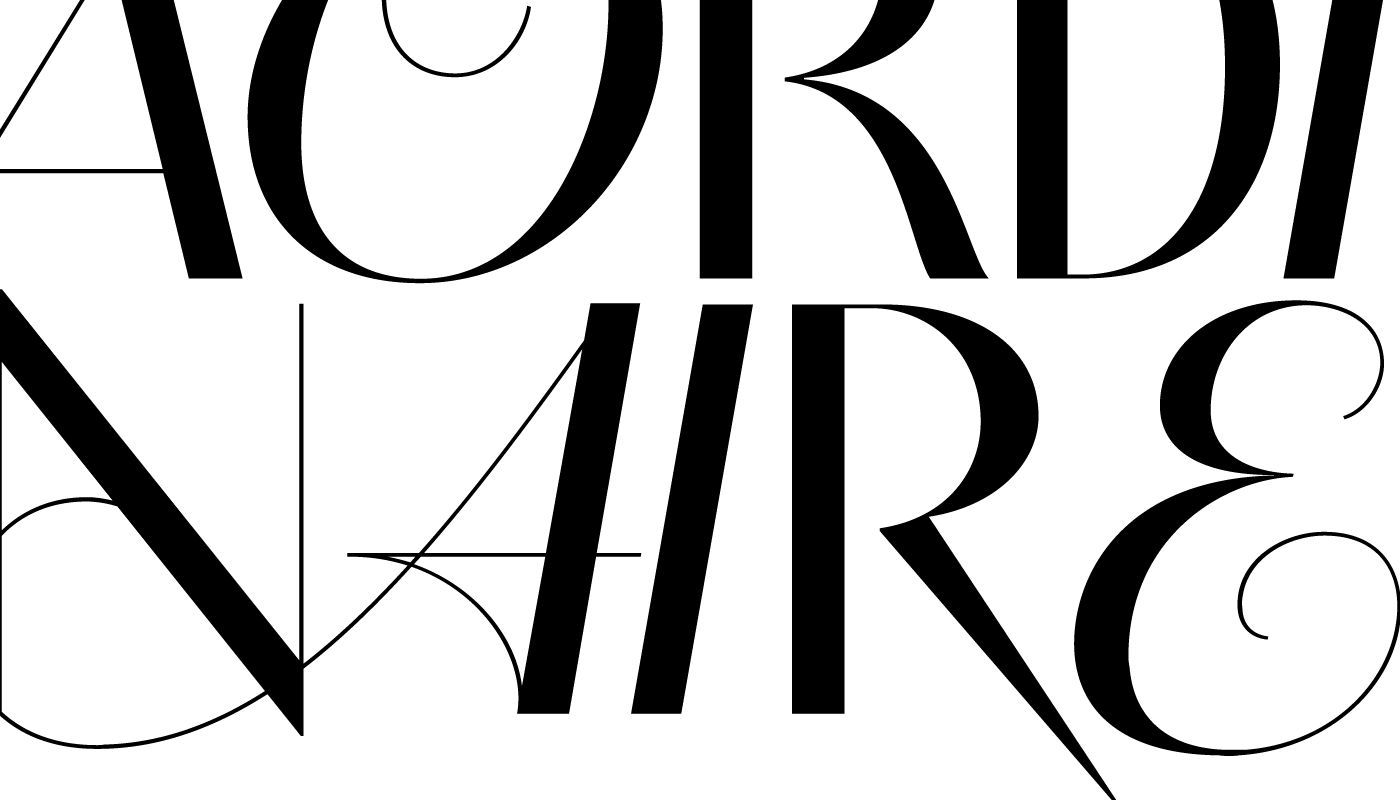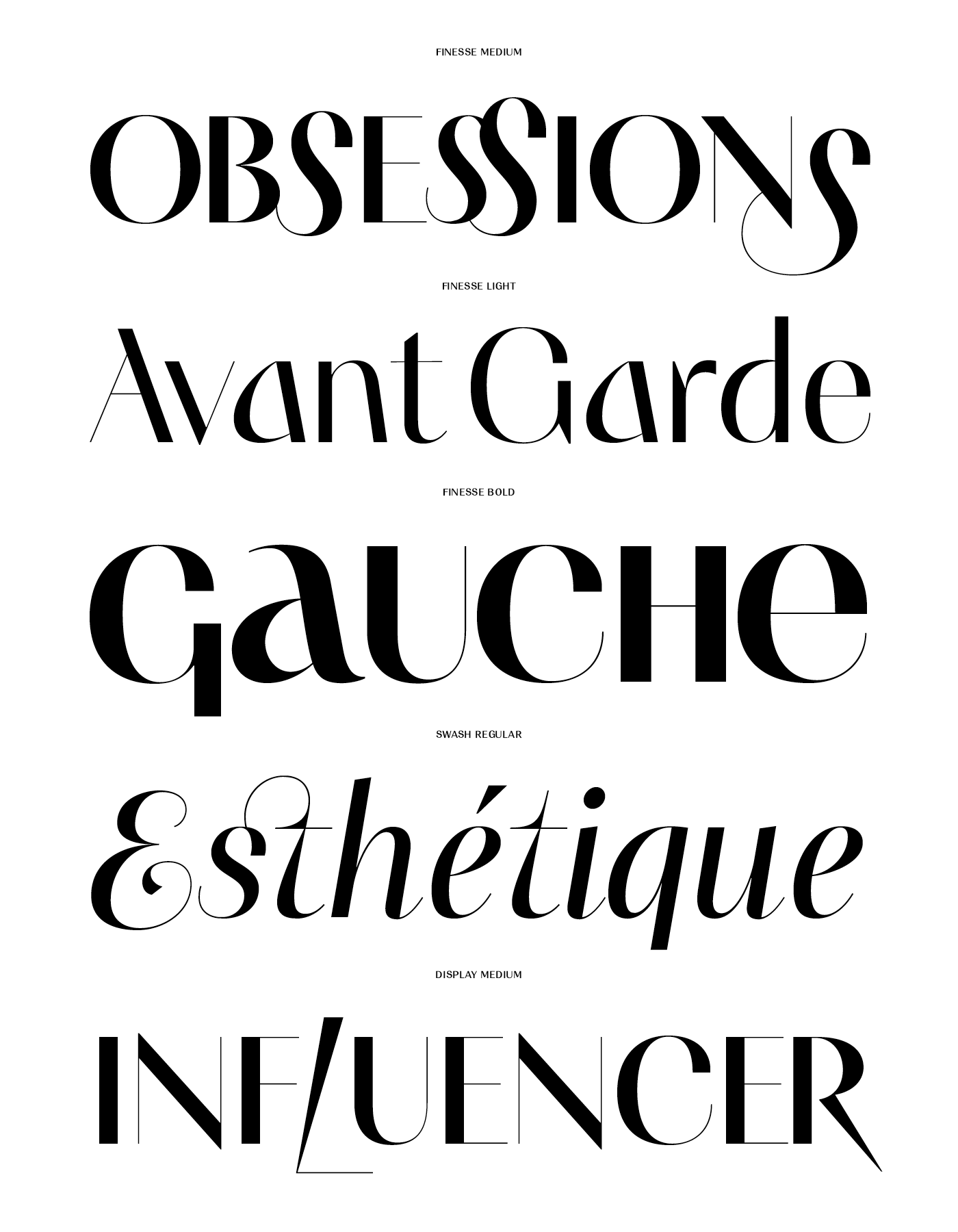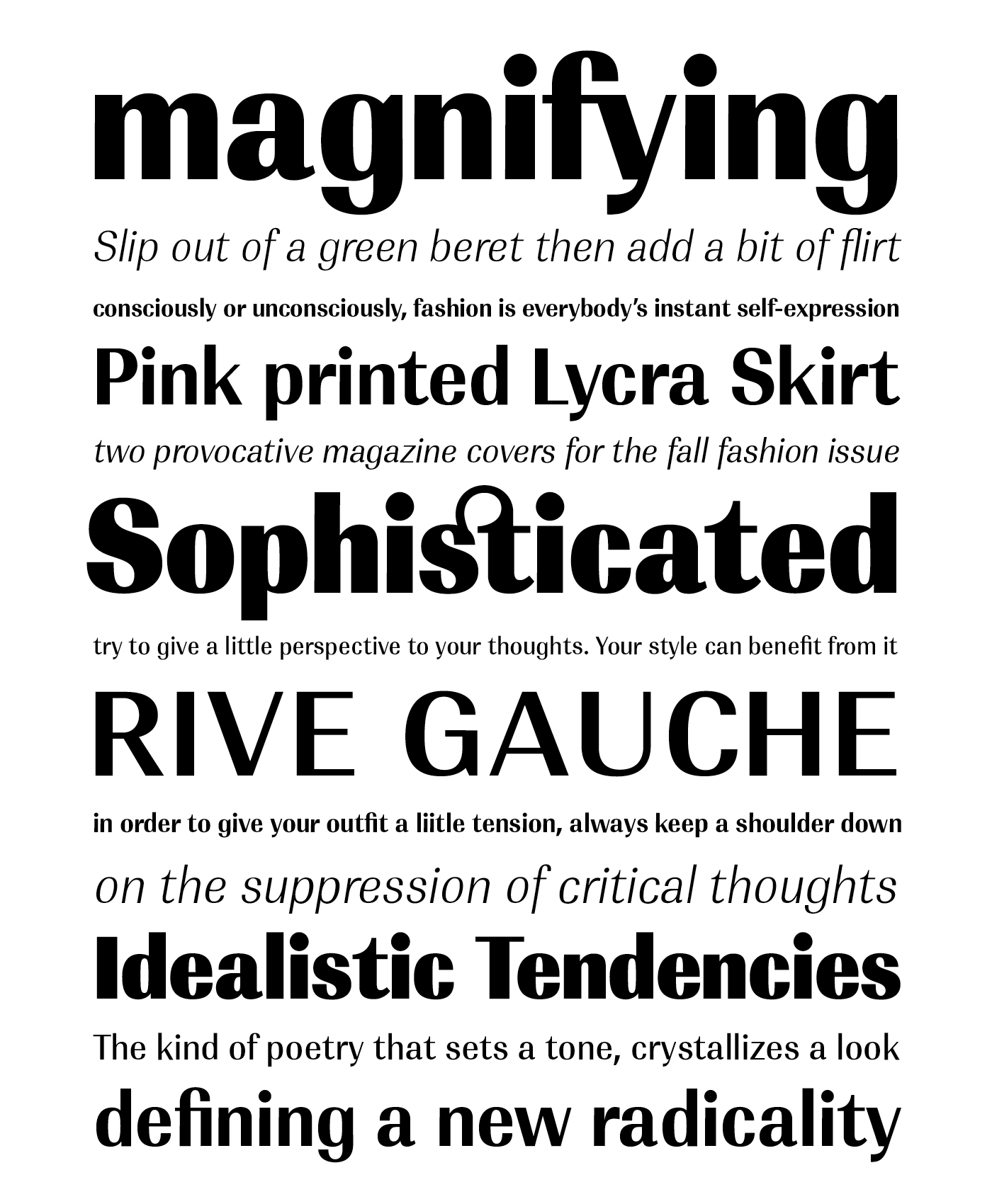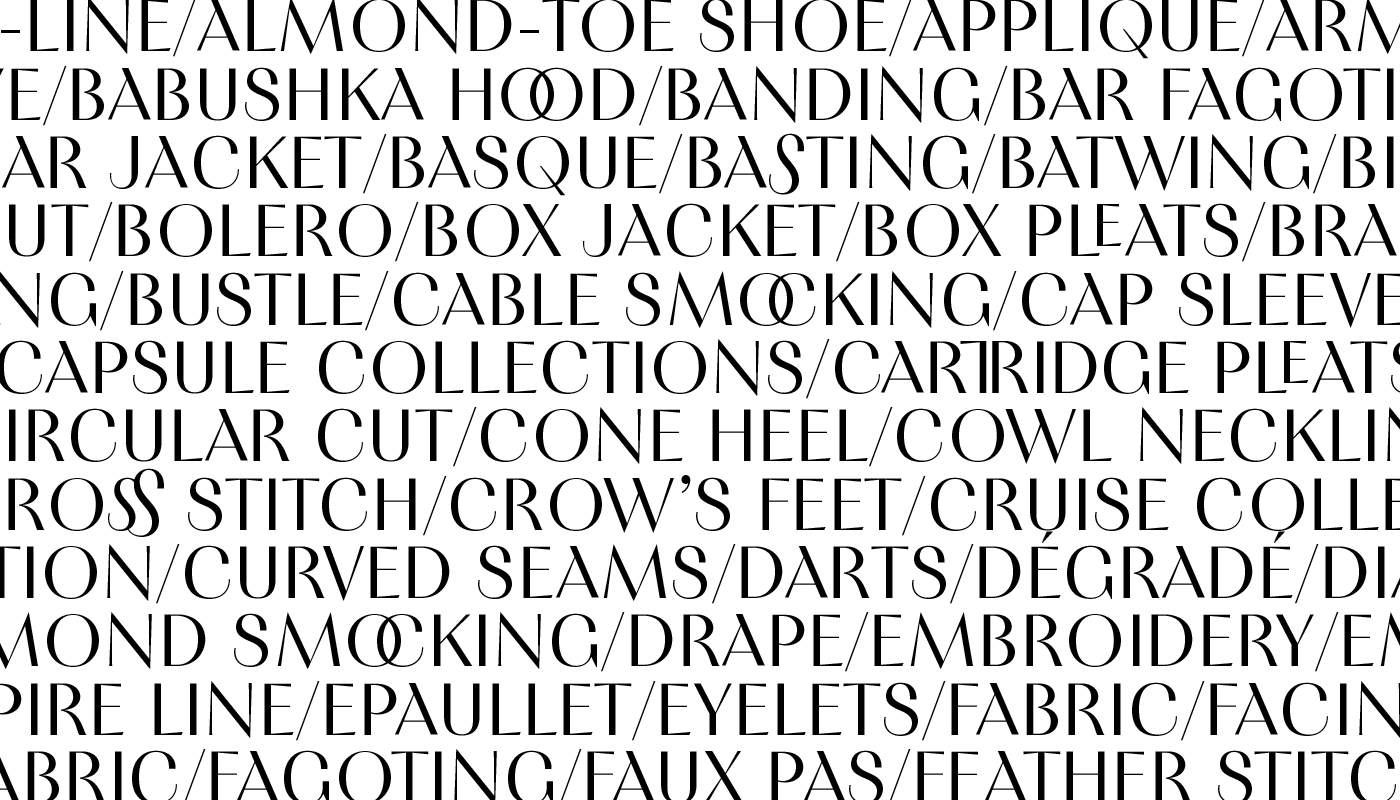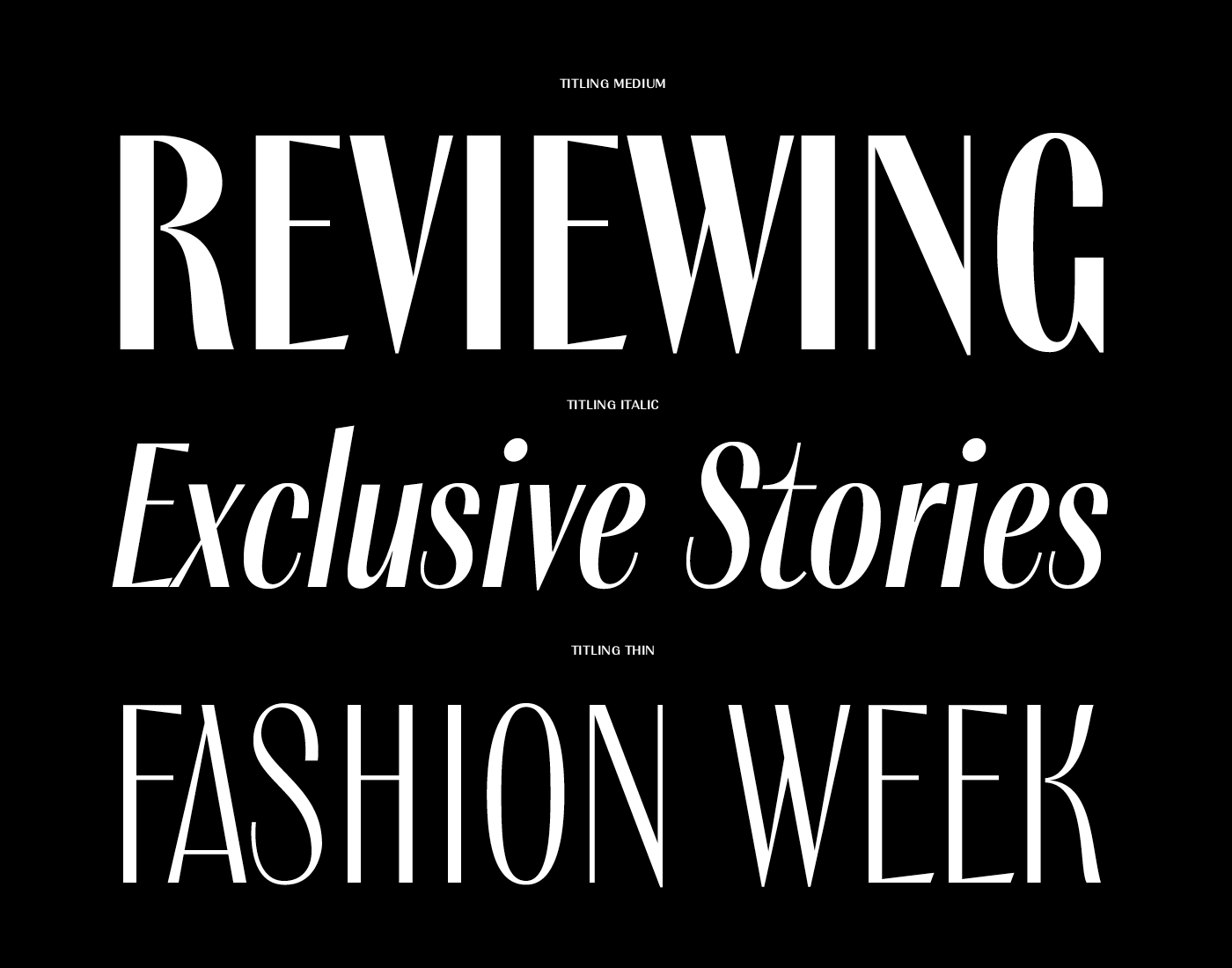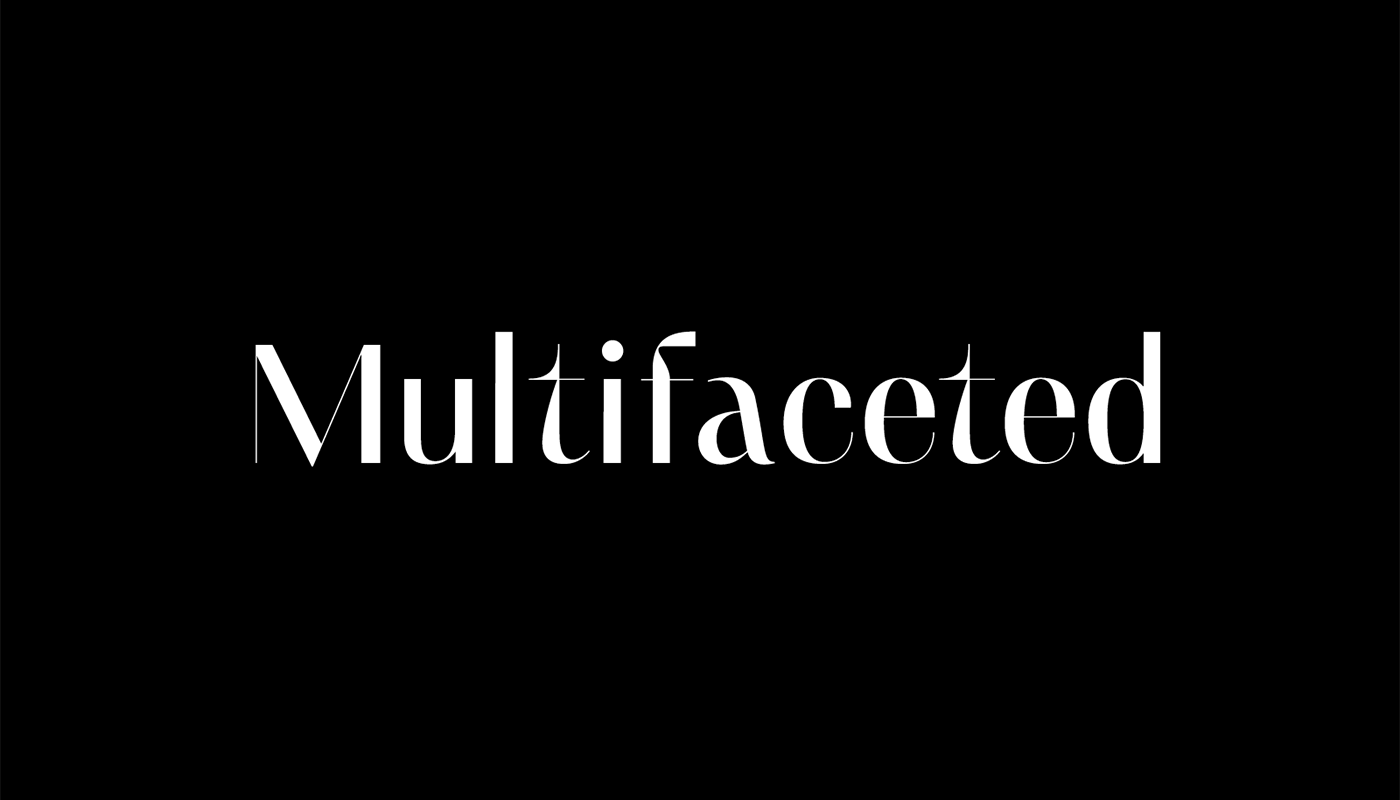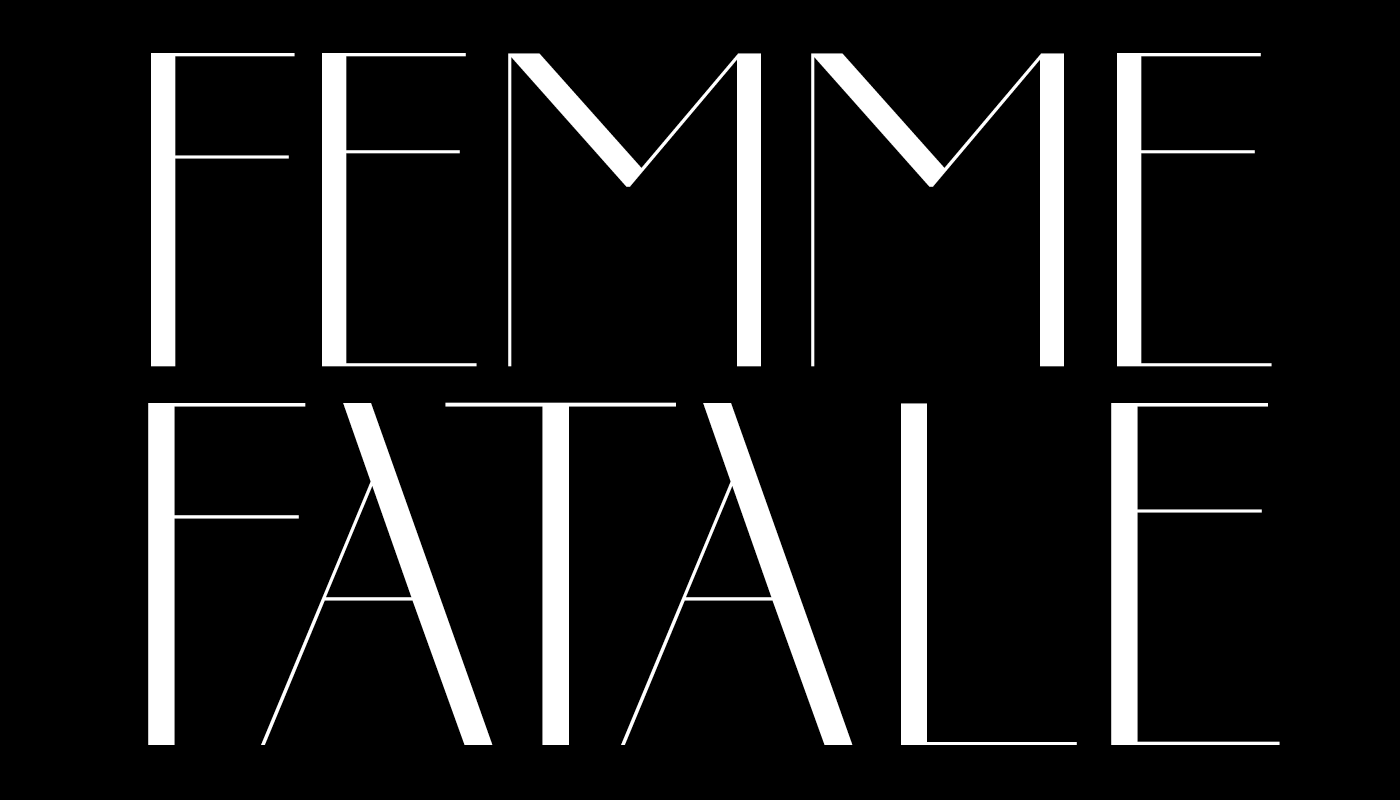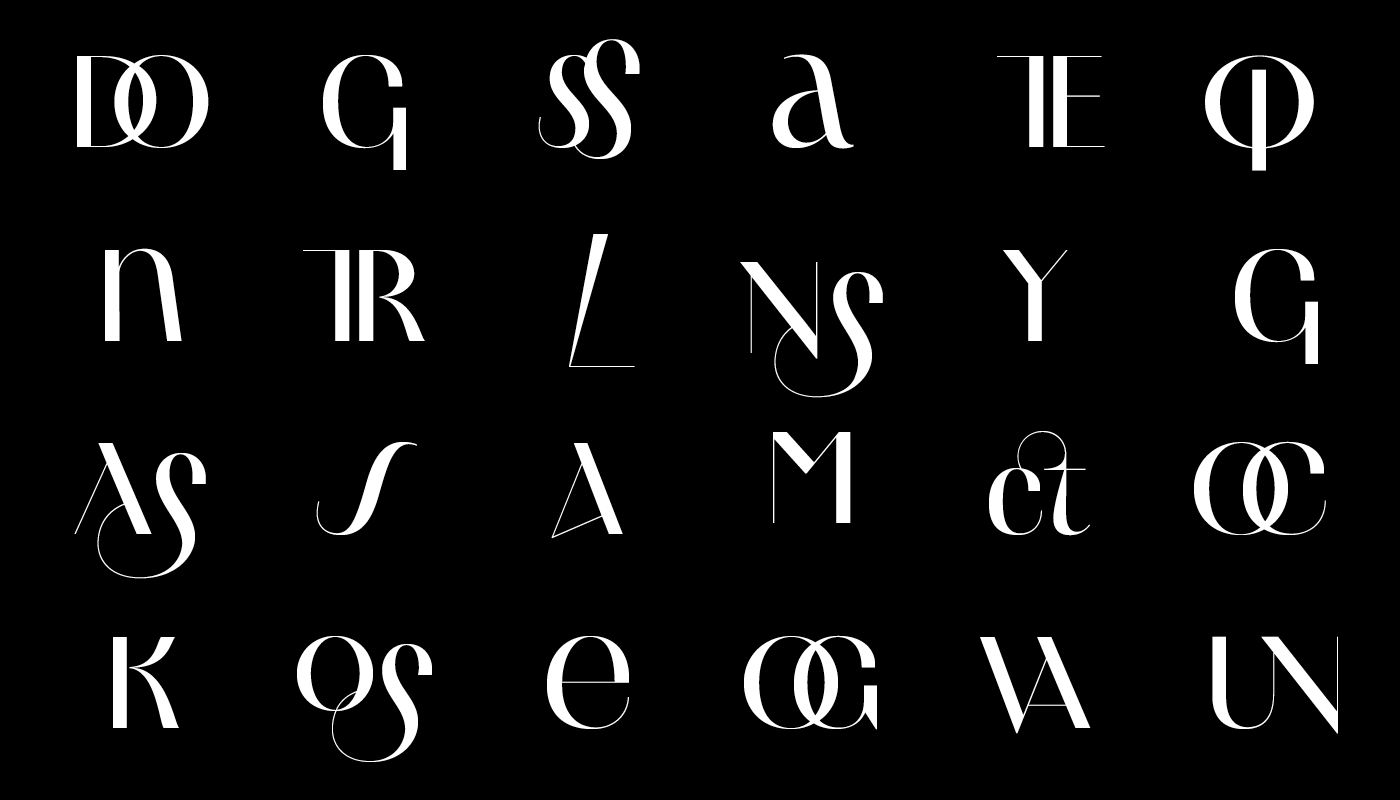
PF Marlet: Edgy, elegant & probably the ideal font of the month
In the event of Typography Guru's Font of The Month competition, we present you with a type system nominated for October, our beloved PF Marlet.
“Marlet is a beautiful and inspiring set of typographic elements based on a minimal and simplistic approach to elegance. Originally designed as a single-style font for a Mexican cosmetics institute and its exclusive make-up and skincare line aimed at upper-middle income bracket women, Marlet has progressively bloomed” notes Parachute Typefoundry's Panos Vassiliou of his latest creation, a type system made for timeless elegance through numerous combinations diverting from passing trends in type design.
“The inspiration came from the roaring 20s and 30s, decades that embraced women’s independence both socially and politically. Taking intricate hints from the era whilst maintaining approachability, the contemporary dynamic version of this humanist typeface evolved with modulated b.”
“Marlet projects elegance and understated luxury, bringing femininity and all its complexities into the limelight, with lean lines concluding to subtle humanist curves that reference simplicity and underline the font’s exquisite quality. Its thick-thin, serif-less strokes express the modernity of the fashion industry, breaking away from the monotone sans serif.”
“A type system with contrast progressing from low (Text version) through medium (Display) to high (Finesse), with differentiated letter widths (Titling), extravagant letterforms (Swash) and finally 64 eclectic patterns (Motifs), Marlet evolved from a single typeface into a comprehensive type system in various weights which support Latin, Greek and Cyrillic.”
“Simple and elegant at the same time and in contrast to ultra-feminine Didot and Bodoni, Marlet is a ladylike infused typeface that is nonconformist, multifaceted, fashionable and romantic, strong and chic, casual yet provocative.”